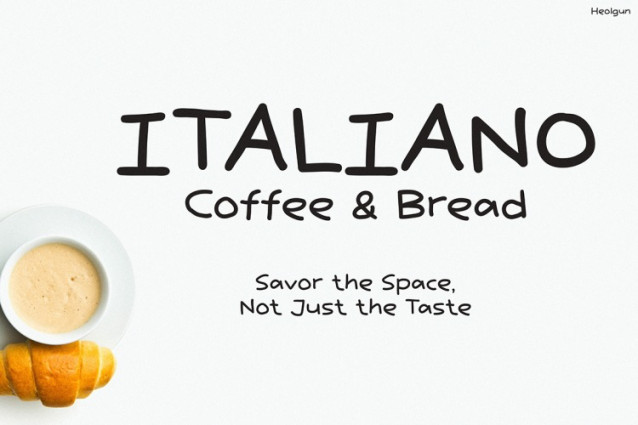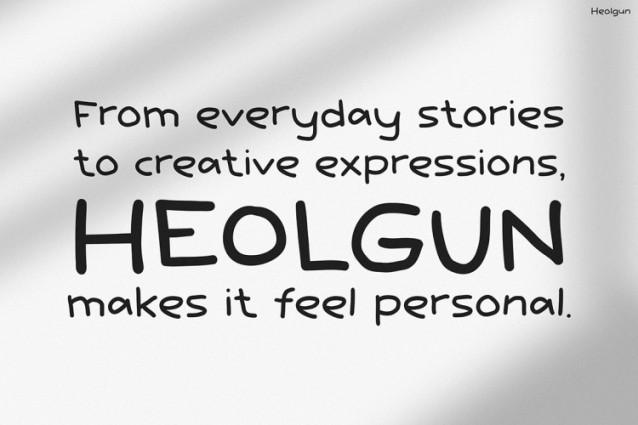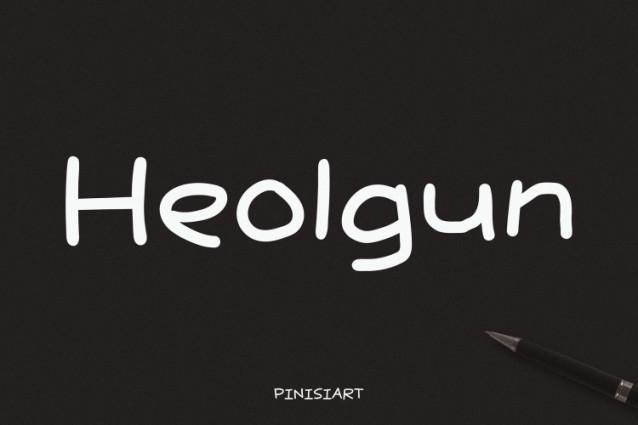
Heolgun Font
Heolgun Font is a handwritten display font that brings warmth, clarity, and charm to your words. Its rounded edges and slightly imperfect strokes give it a human and friendly personality. As a result, it feels like a real note from a friend rather than a cold, digital typeface.
This font stands out because of its balance between structure and softness. Unlike overly polished fonts, Heolgun is casual yet clean. Therefore, it’s ideal for messages that need to feel both expressive and authentic.
In addition, Heolgun adapts to various styles and moods. You can use it in bold, dramatic settings like on a black background. On the other hand, it also works beautifully in soft, calm settings.
Moreover, it includes full character support—uppercase, lowercase, numbers, punctuation, and multilingual characters. Consequently, it’s functional and flexible enough for all kinds of branding and storytelling needs.